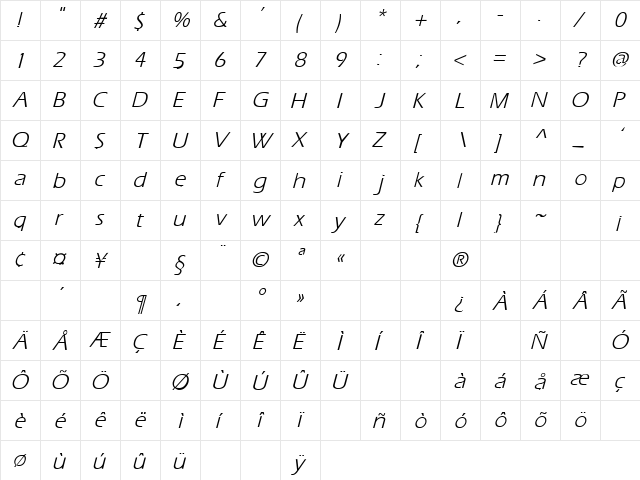
Presence 4 Italic
Presence 4 is a composed and adaptable typeface that performs quietly and consistently across a wide range of design contexts. The slanted form adds forward momentum and visual energy.